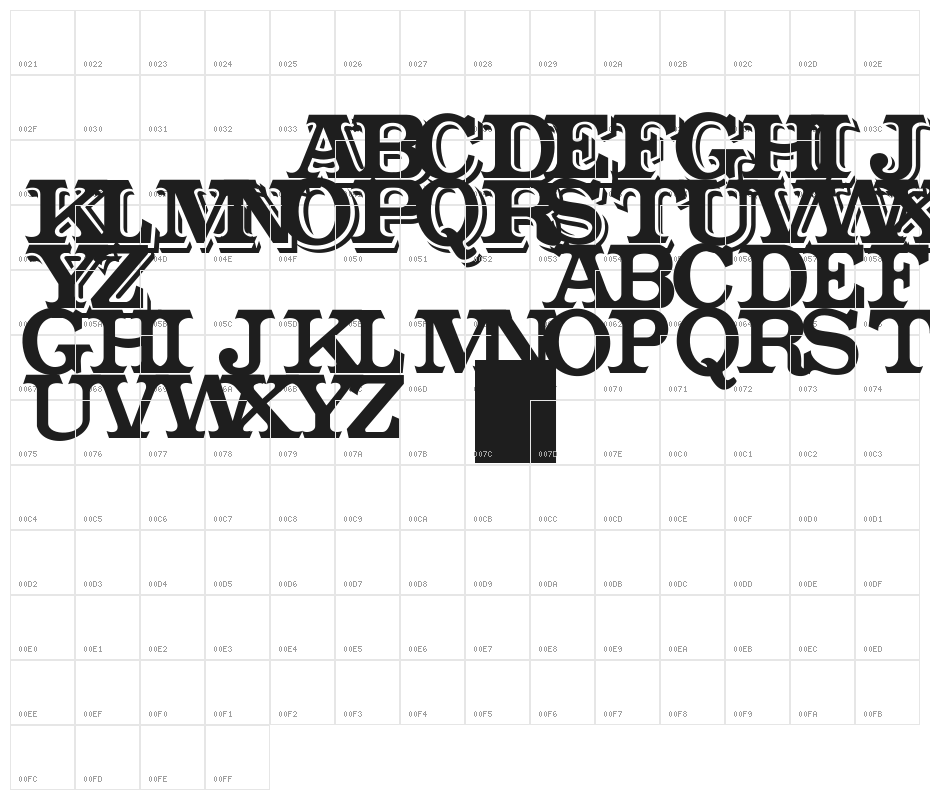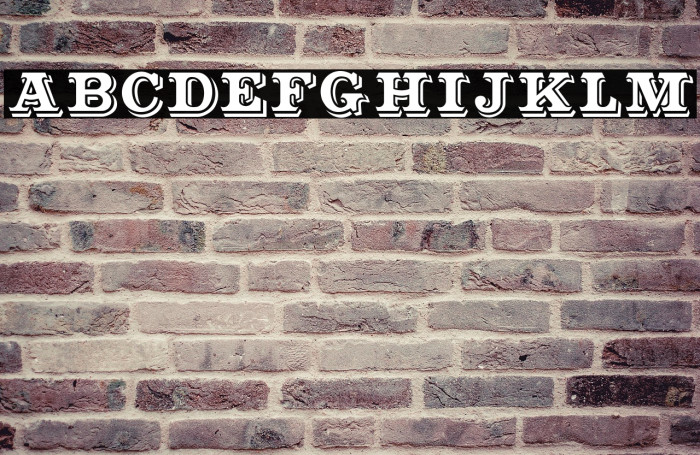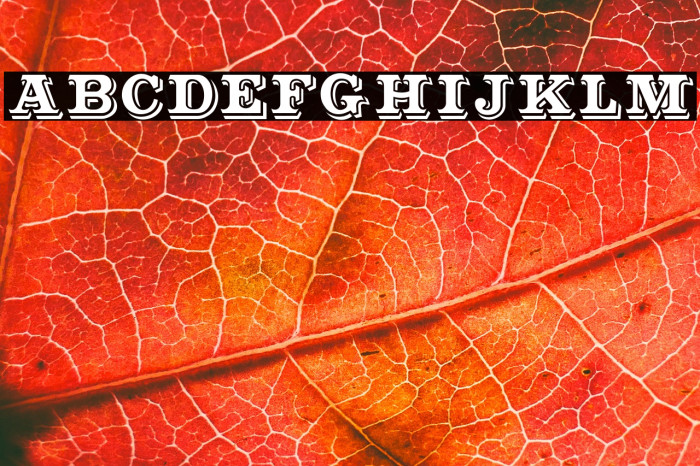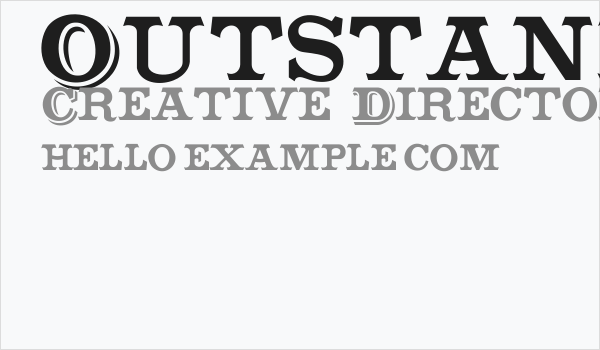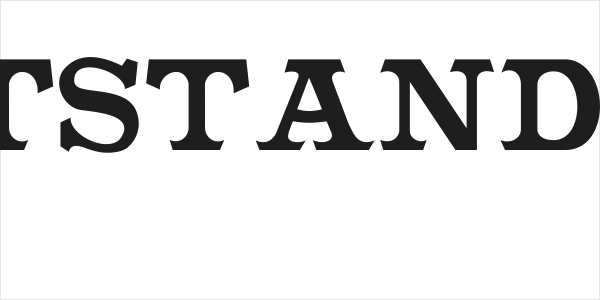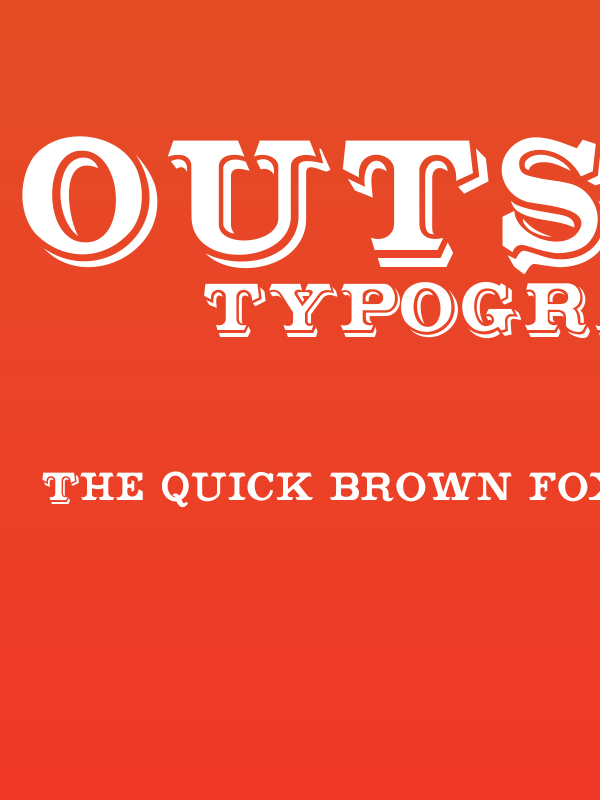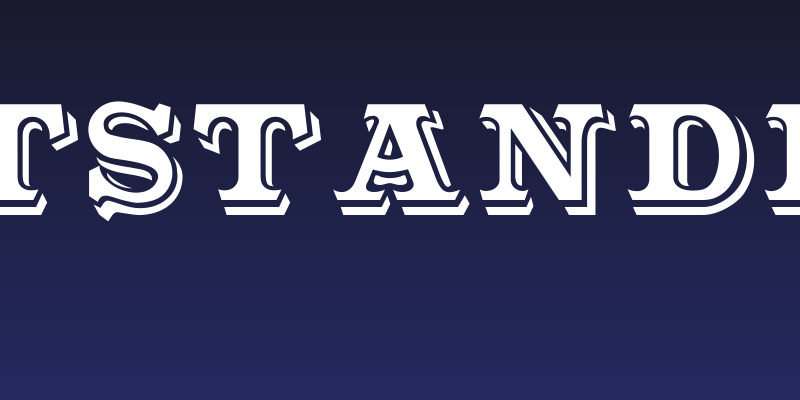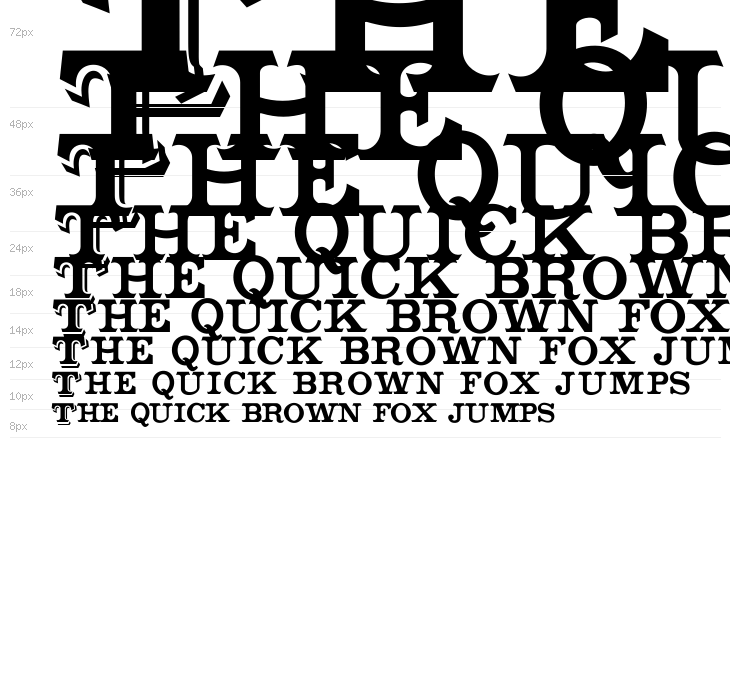
Outstanding Font
Outstanding Description
This font features a bold, decorative style with strong serifs and a shadow effect that adds depth and dimension to the characters. The uppercase letters are prominent and commanding, making them ideal for attention-grabbing headlines or titles. The design incorporates a classic serif structure with a modern twist, evident in the shadowing that gives a three-dimensional appearance. The characters are well-defined, with a consistent stroke width that enhances readability while maintaining a decorative flair. This font is perfect for projects that require a vintage yet bold aesthetic, such as posters, signage, or branding materials.
| Overall Style | Vintage |
| Proposed Projects | Ideal for posters, signage, branding materials, and any project needing a bold, vintage aesthetic. |